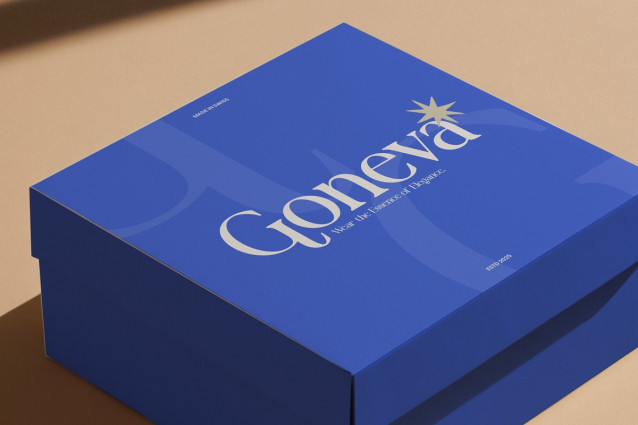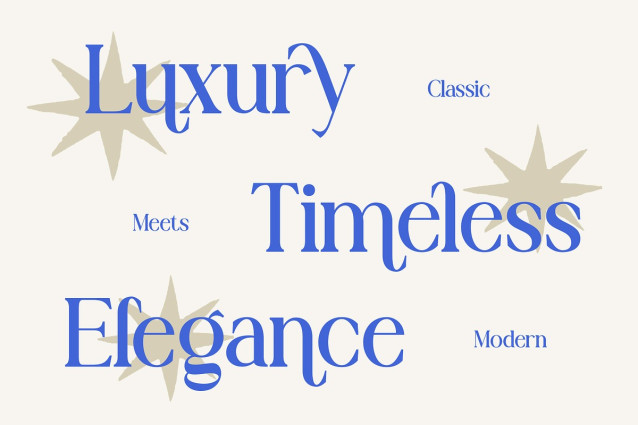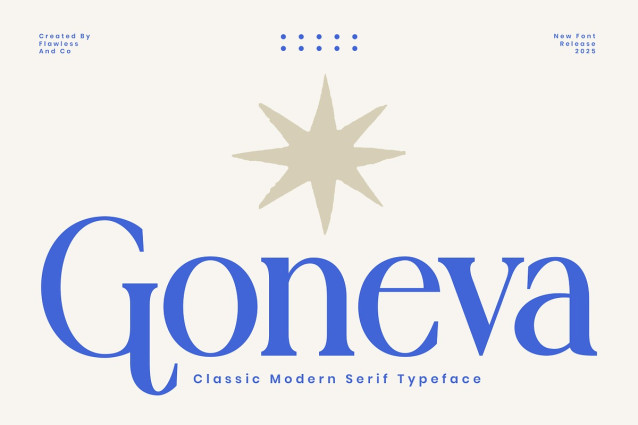
Goneva Font
Goneva Font is a classic modern serif font that blends timeless sophistication with a clean, contemporary touch. Every curve and serif is thoughtfully crafted to create a graceful yet confident impression — perfect for designs that seek elegance and refinement. With its balanced proportions and stylish letterforms, Goneva shines in both display and text settings. Whether for branding, editorials, invitations, packaging, or logo design, Goneva adds a sense of modern luxury and effortless beauty to every project.